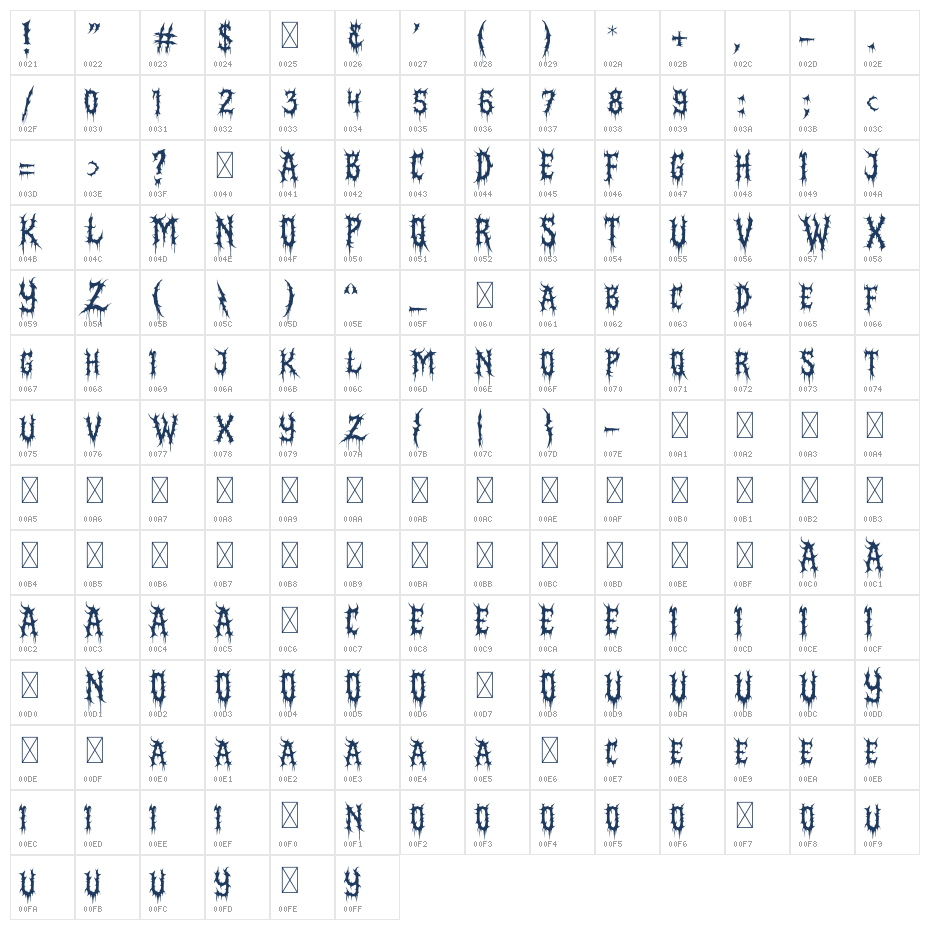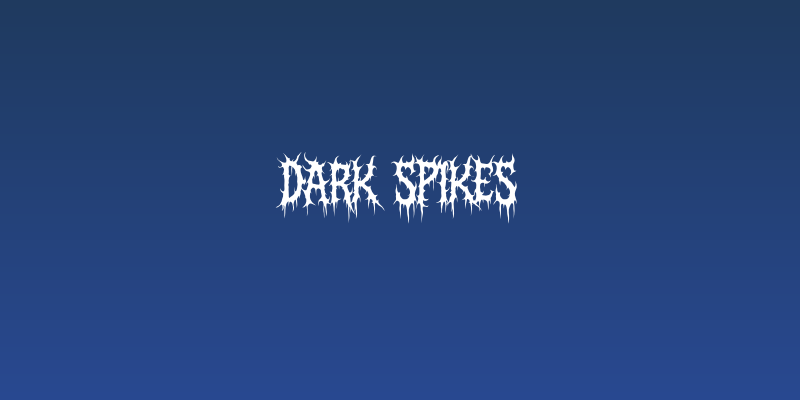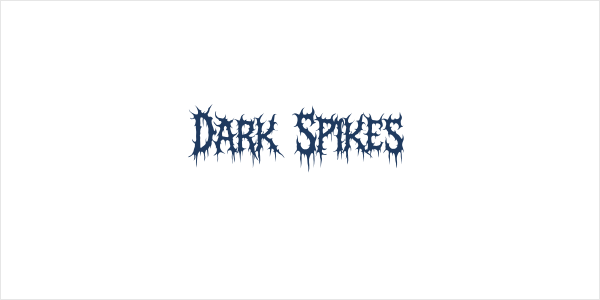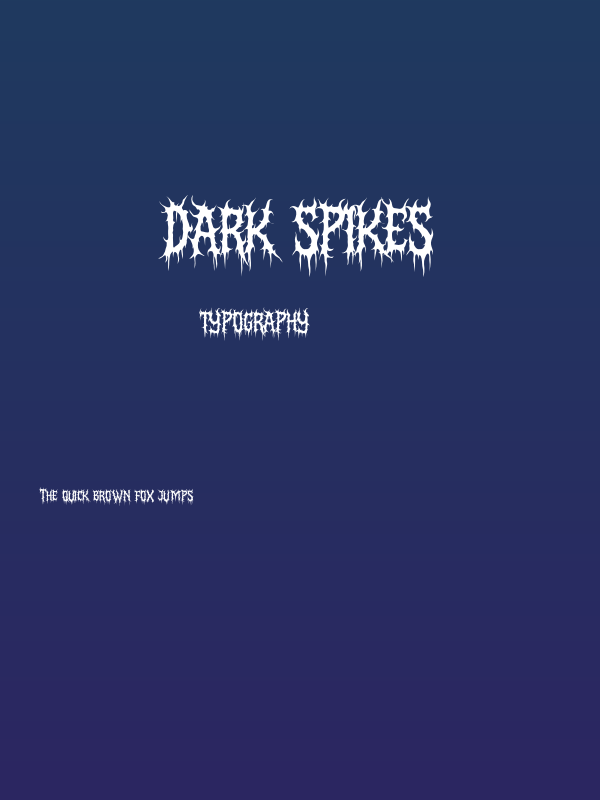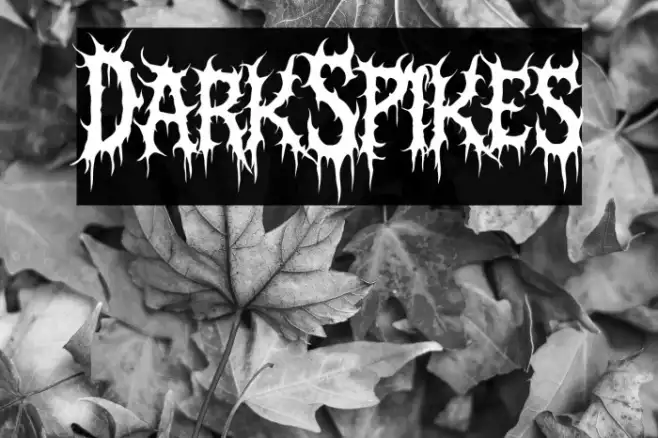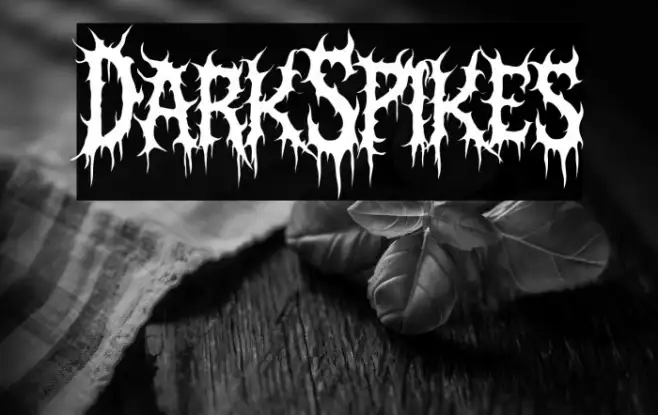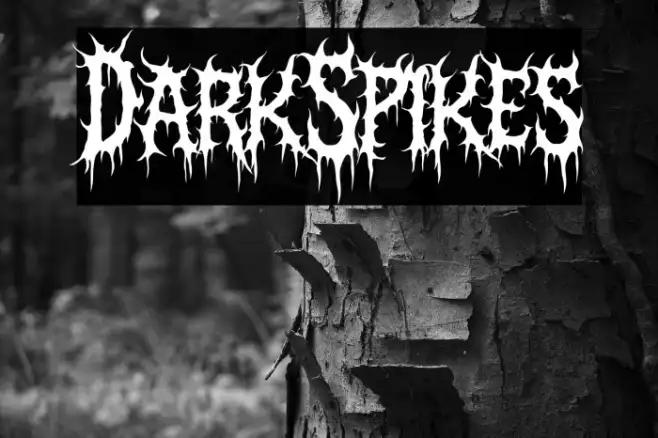
Dark Spikes Font
Dark Spikes Description
A highly decorative, spiky, and jagged font with an aggressive, horror-inspired style.
| Overall Style | Gothic, Horror, Edgy |